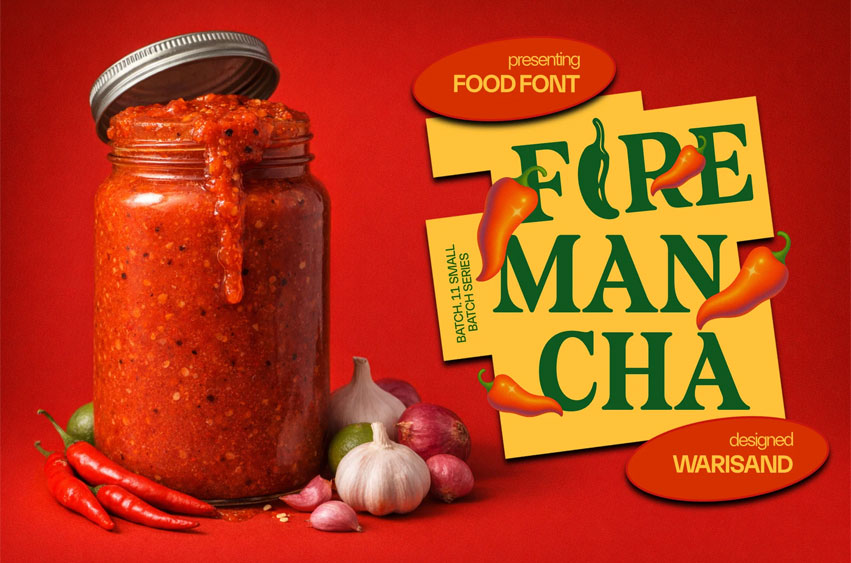
Firemancha Font
Firemancha Font is a spicy and expressive food font designed to bring heat and flavor into every creative project. Inspired by hot sauce labels, traditional kitchen culture, and bold restaurant visuals, this font is perfect for food logo designs, cafe branding, bakery packaging, pizza menus, burger advertisements, candy labels, coffee promotions, and restaurant identity systems. Its strong serif style creates a rich and authentic appearance that instantly captures attention and delivers a delicious visual experience.
Perfect for cooking brands, kitchen packaging, chocolate products, spicy menu designs, and modern food campaigns, Firemancha combines vintage flavor with bold contemporary energy. Whether used for a fiery sauce label, street food poster, ice cream promotion, or restaurant brand identity, this font helps your visuals feel warm, memorable, and packed with personality. A perfect choice for businesses that want a strong food brand presence with a handcrafted and flavorful touch.
Designed for creatives who want stylish, functional, and flexible typography for business identities, promotional materials, and standout visual projects.